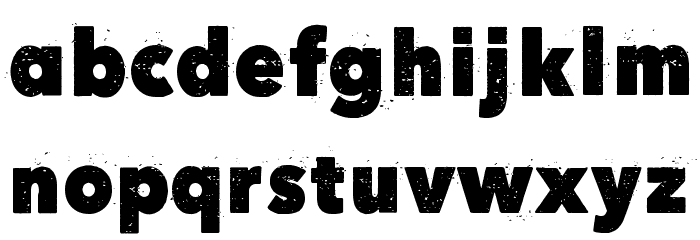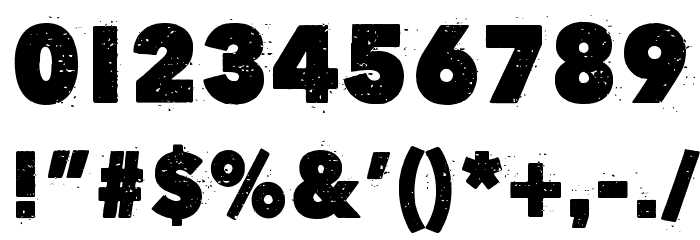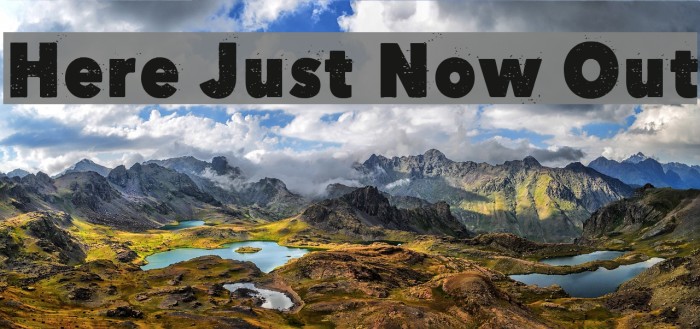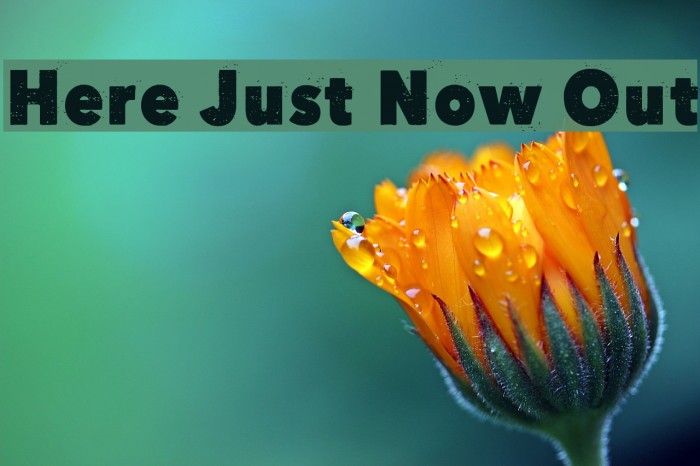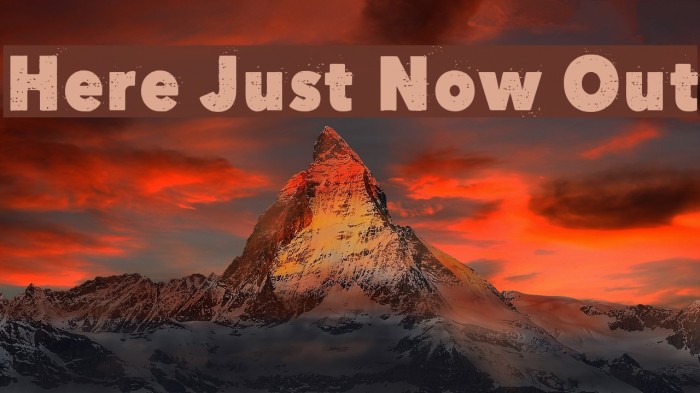
Here Just Now Out Font
This font features a bold, distressed style with a textured appearance that gives it a rugged and vintage feel. The uppercase and lowercase letters are uniformly bold, with rounded edges that soften the overall look. The numbers and special characters maintain the same distressed texture, ensuring consistency across all elements. This font's unique style makes it stand out, with a design that suggests a sense of history and character. The texture is reminiscent of worn-out prints, adding an element of authenticity and charm.
A bold, distressed font with a vintage, textured appearance.
- Proposed Projects: Ideal for vintage-themed posters, logos, branding for rustic or artisanal products, and any design requiring a bold, textured look.
- Overall Style: Vintage